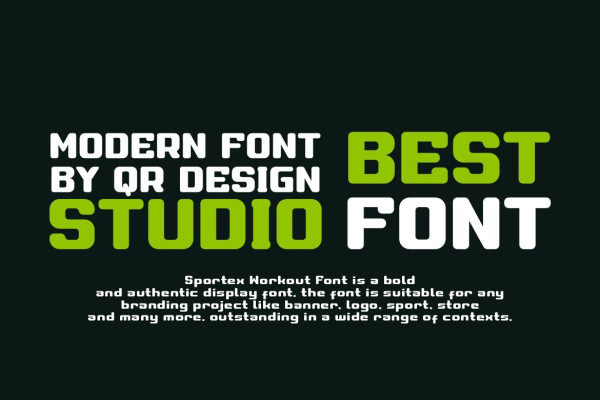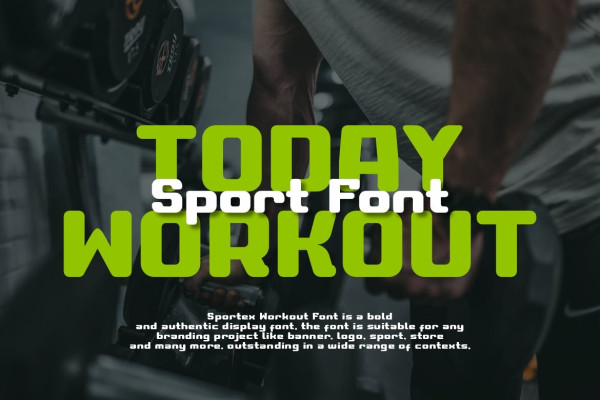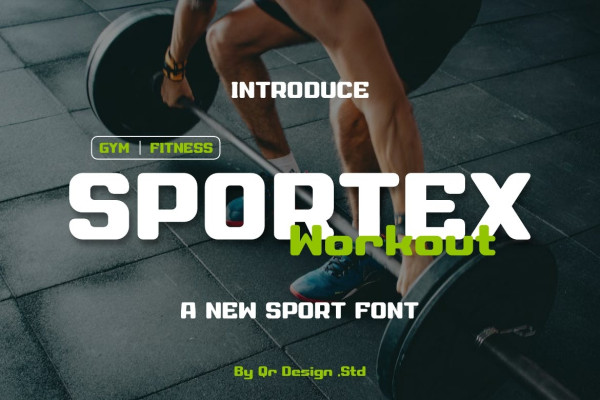
Sportex Workout Font
Sportex Workout Font is a bold and authentic display font. The font is suitable for any branding project like logo, sport, and many more. Outstanding in a wide range of contexts.